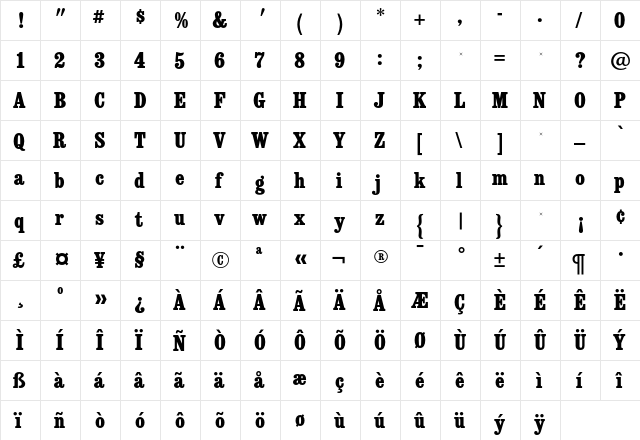
ConsortRR Regular
Design Context for ConsortRR Typeface
ConsortRR is a composed and adaptable typeface that performs quietly and consistently across a wide range of design contexts.